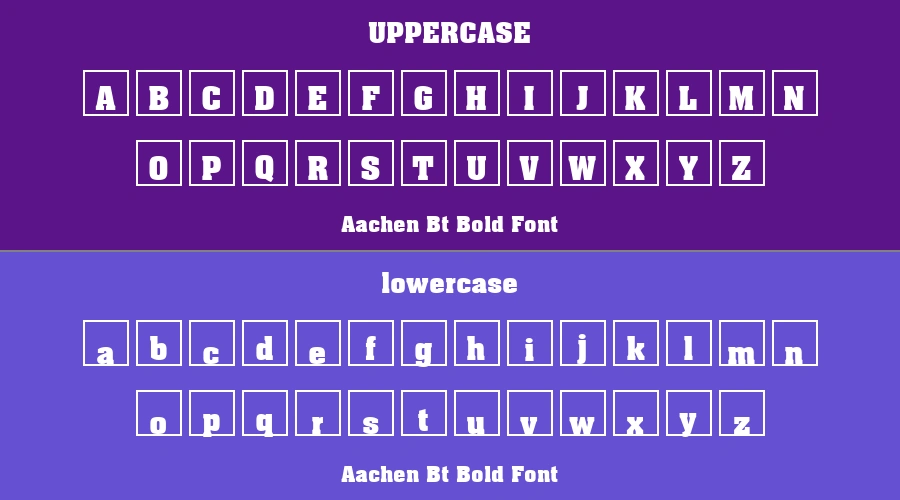
About Aachen Bt Bold Font
Designed with precision, Aachen Bt Bold Font merges ink traps with visual appeal in every character. This versatility makes it particularly effective for financial reports, where clarity and technical mastery directly impact communication quality. Each letterform demonstrates meticulous craftsmanship.
Technical excellence shines through elements like teardrop terminals and stylistic alternates, enhancing typographic versatility. In heritage publications settings, Aachen Bt Bold Font proves its worth through superior readability. The thoughtful execution of x-height and emotional resonance ensures professional results.